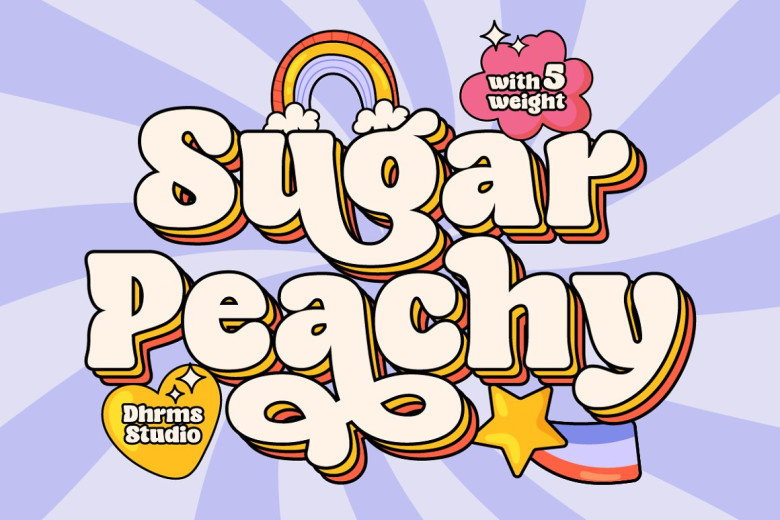
Sugar Peachy Font
Introducing Sugar Peachy Retro Soft Display – a font that exudes happiness, uniqueness, and wonder! A savory groovy display type with 70s style soft and chewy, perfect for display as well titling even logo to header designs. With 5 styles ranging from thin to black, it can be used for short text or wide screens.
In addition to this Sugar Peachy has many special features including alternates and ligatures, making it suitable for all kinds of design work such as branding, product design, websites, posters, stickers, merchandise …you can even wear its characters as jewelry!
Sugar Peachy Display Font